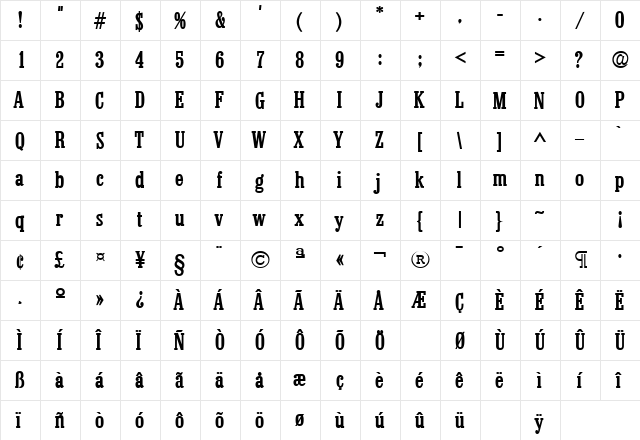
Colonel Bold
Design Context for Colonel Typeface
Colonel takes a measured approach to typography — its balanced proportions and neutral character make it a reliable workhorse for both digital and print work. Its bold stroke weight gives it real presence on the page.